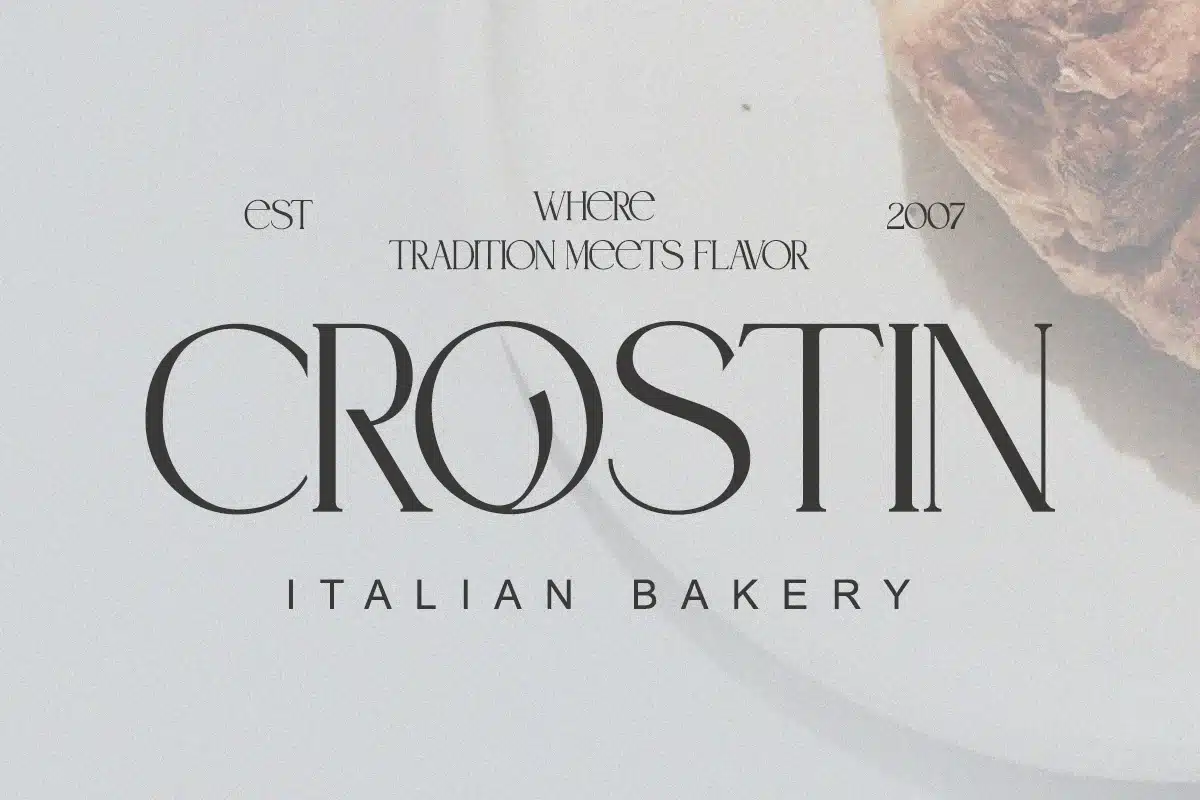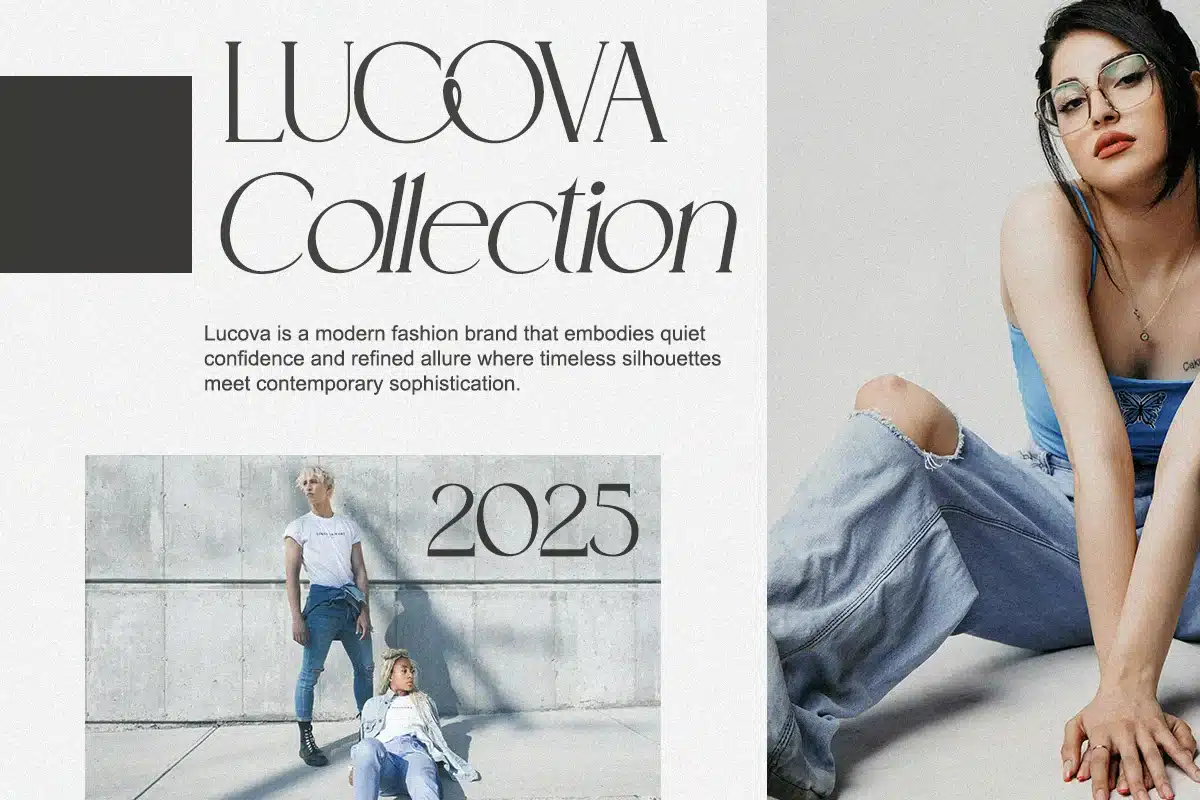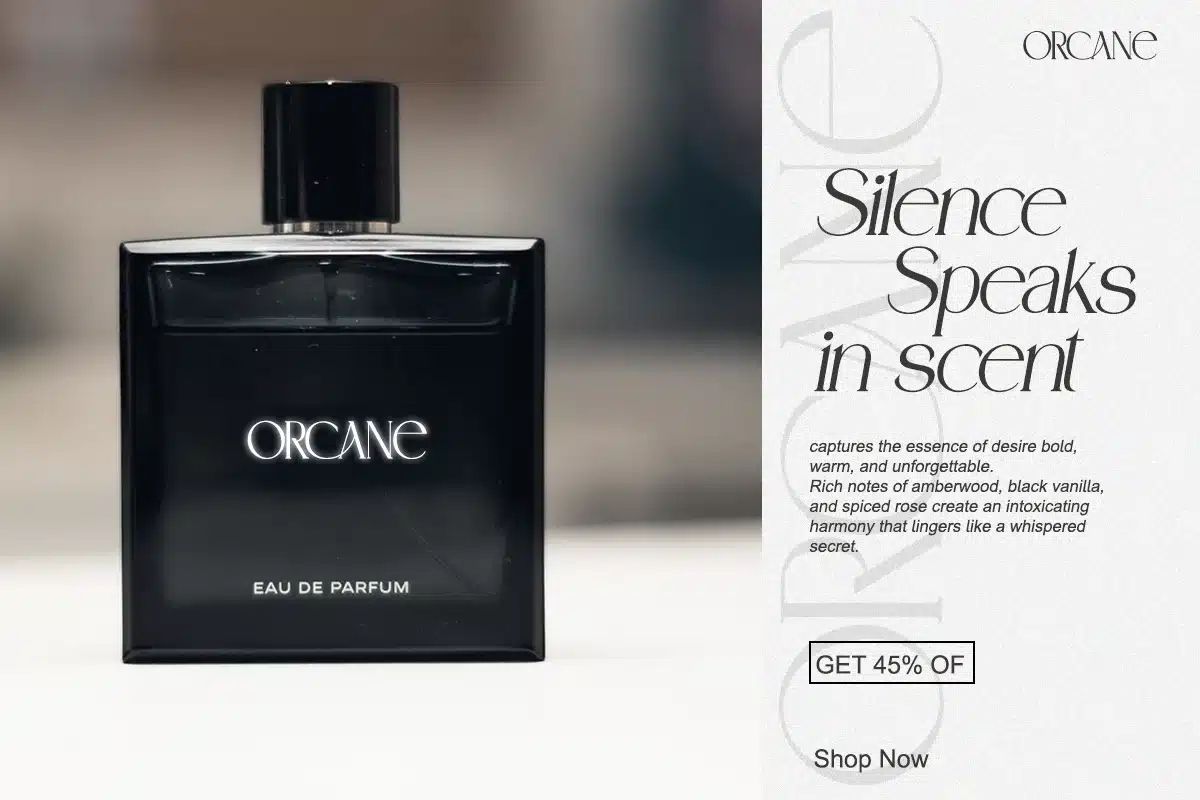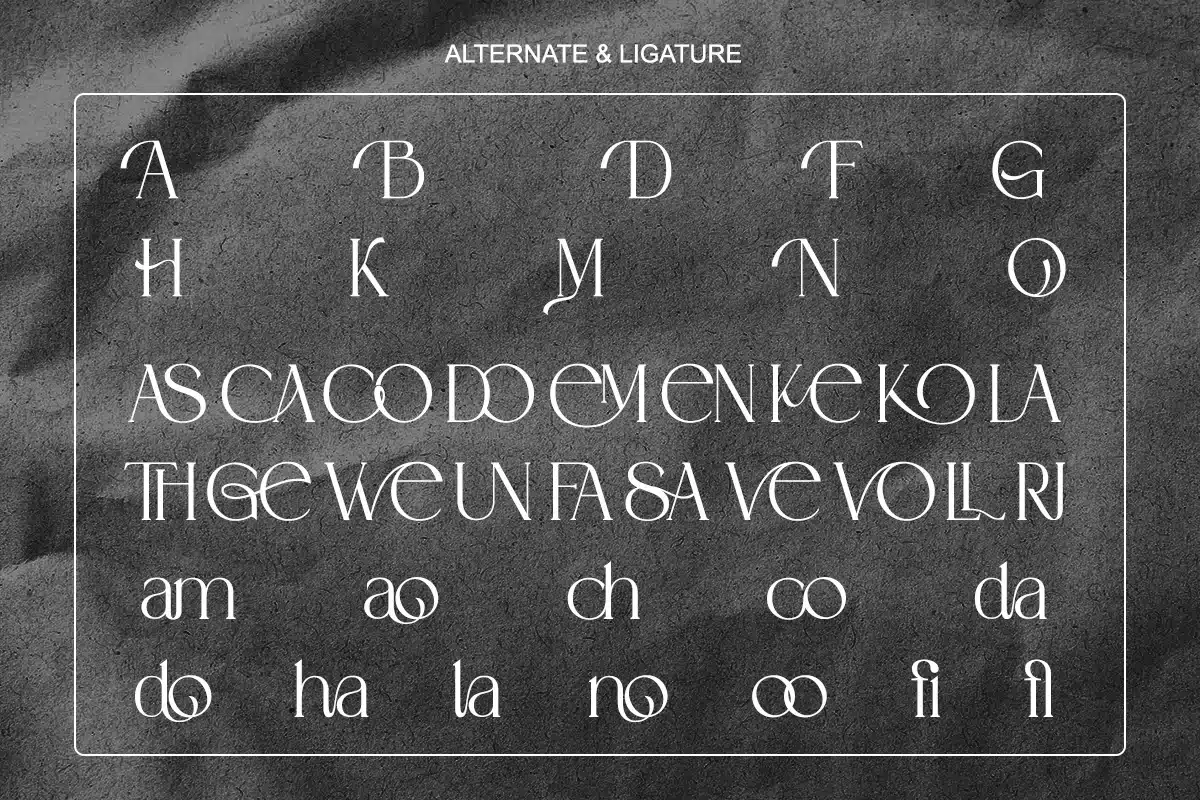
Nematho is a modern elegant serif typeface designed for luxury branding and timeless sophistication.
Its sleek curves and refined contrasts exude confidence and class, making it ideal for logos, packaging, editorials, and premium identity design.
Each character reflects balance and professionalism — the essence of elegant visual communication.
- Regular & Italic
- Uppercase & Lowercase Letters
- Alternates & Ligatures
Perfect For:
Luxury branding, editorial layouts, product packaging, and minimalist visual identity.